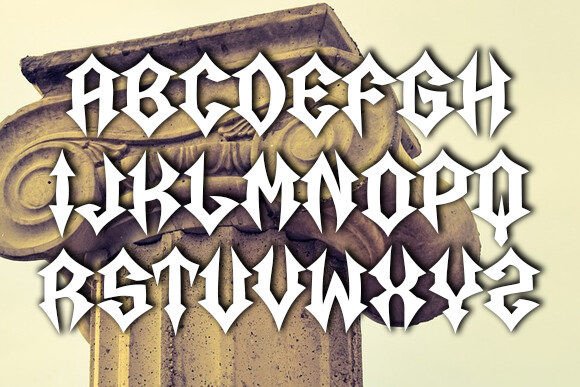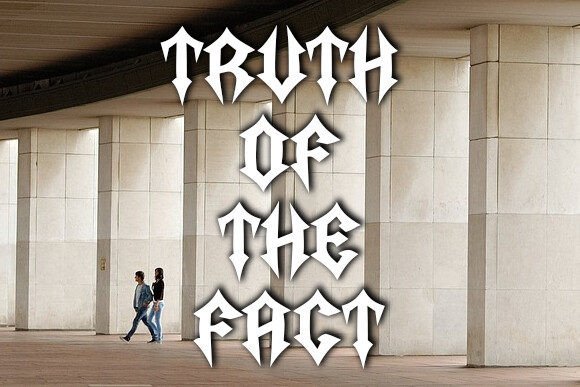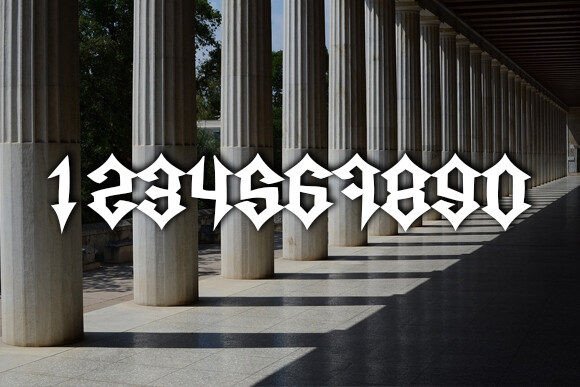
Introduction to Sariya Font
Sariya is stylish Gothic font that will give your designs fresh look.
Use this font on posters, flyers and t-shirts .
Key Features of Sariya Font